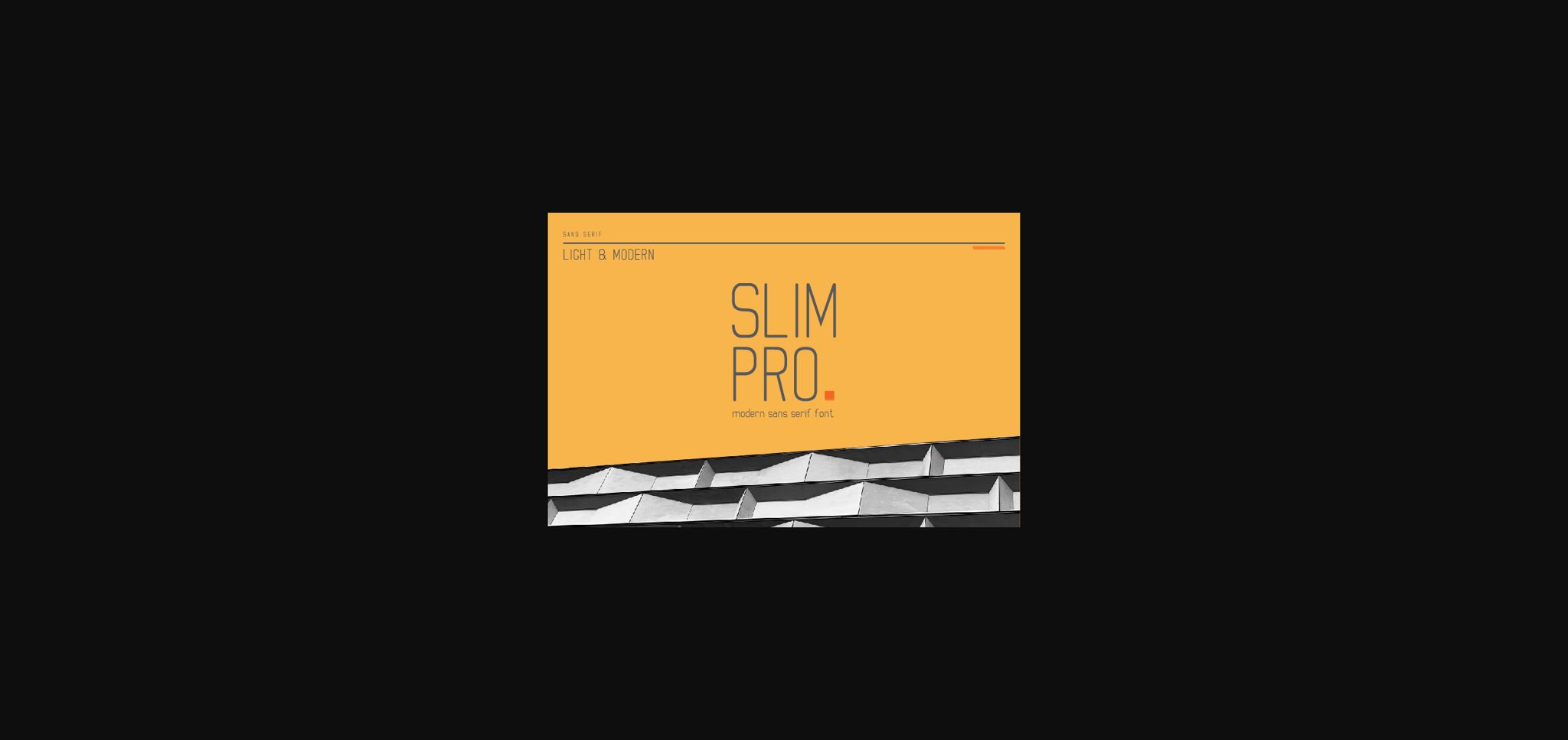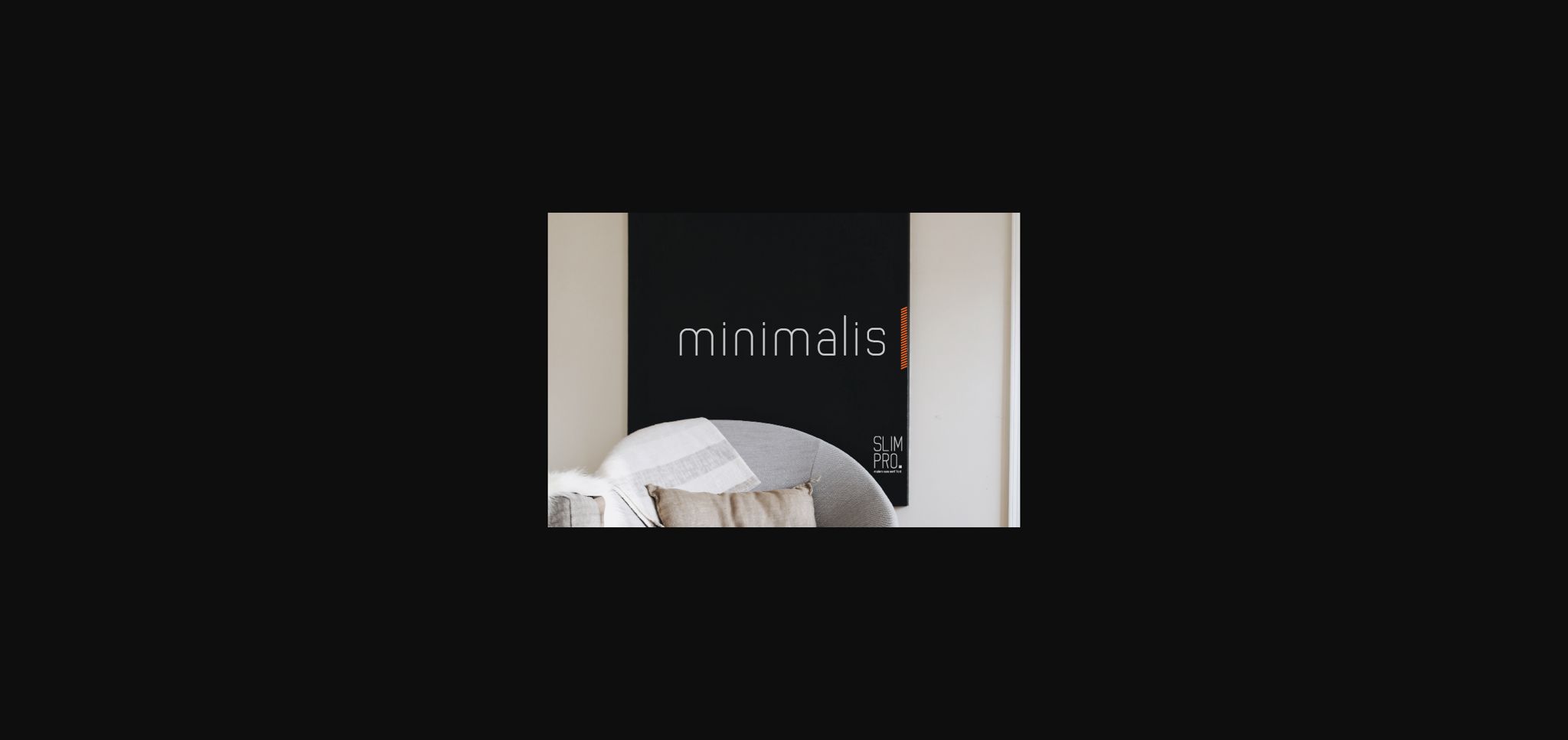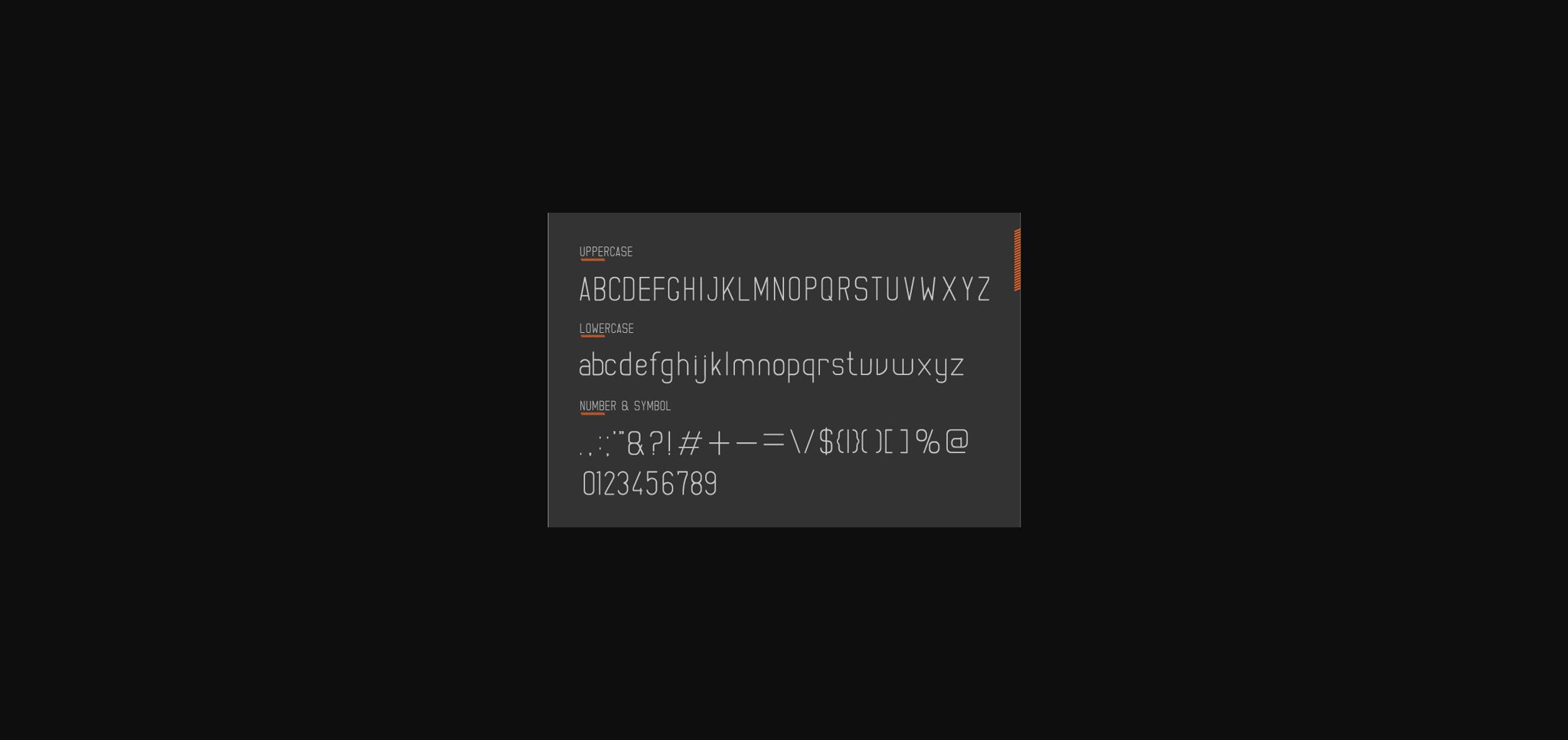
Slim Pro Font
About Slim Pro Font
Slim Pro is a fine and all round sans serif font. No matter the topic, this font will be a genuine asset to your fonts’ library, as it has the potential to elevate any creation.